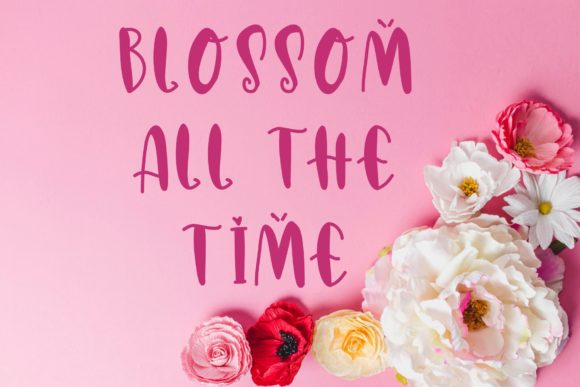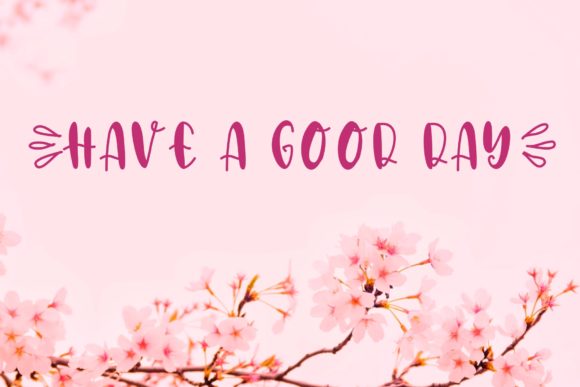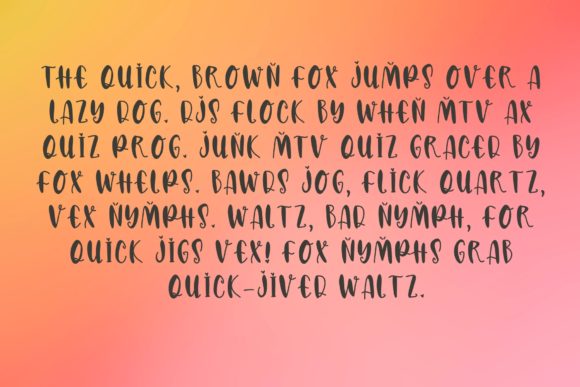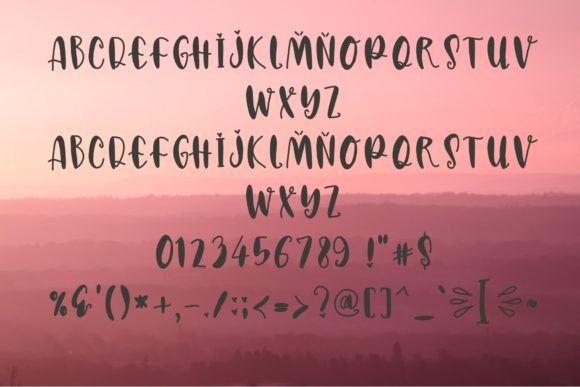
The Sweet Spot: Discovering Abrianna Sweetie Font
I’ll never forget the time I was working on a whimsical craft project, pouring my heart into creating the perfect invitation. The design was playful, the colors were vibrant, but something was missing – the right font. I scoured the internet, tried out dozens of fonts, but none seemed to capture the essence of fun and uniqueness I was looking for. That was until I stumbled upon Abrianna Sweetie Font. ✨
Abrianna Sweetie Font: A First Impression
Abrianna Sweetie is an incredibly cute and playful handwritten font that embodies fun, uniqueness, and authenticity. This dazzling font will turn any creative idea into a standout! It’s perfect for designers, crafters, and creative hobbyists looking to add a touch of personality to their projects.
Honest Review: The Good and the Quirky
• ✨ Unique and playful handwritten style that’s sure to grab attention
• 💕 Extensive character set, including glyphs and stylistic alternates
• 🎉 Perfect for a variety of projects, from invitations to social media graphics
• 🤔 Some users may find the font a bit too playful for formal projects
• ⚠️ Limited availability of certain special characters
The Story Behind Abrianna Sweetie Font
Abrianna Sweetie Font was designed with the intention of creating a unique and playful handwritten font that captures the essence of fun and authenticity. The designer aimed to create a font that would be perfect for creative projects, from invitations to social media graphics.
Q: What type of projects is Abrianna Sweetie suitable for?
A: Abrianna Sweetie is perfect for a variety of projects, including invitations, social media graphics, posters, flyers, and more.
Q: Is Abrianna Sweetie available in different languages?
A: Abrianna Sweetie may have limited language support, but it can be used with many languages that use the Latin alphabet.